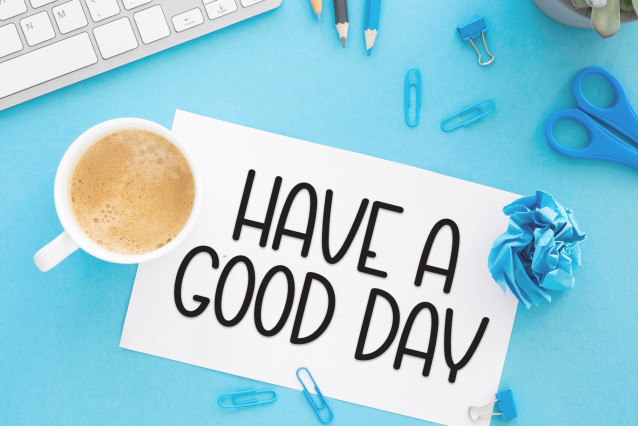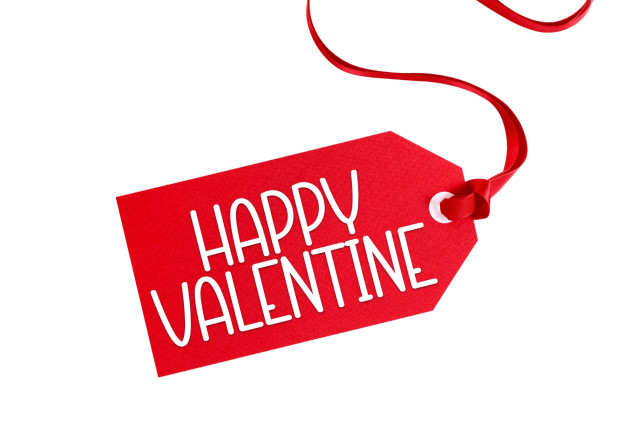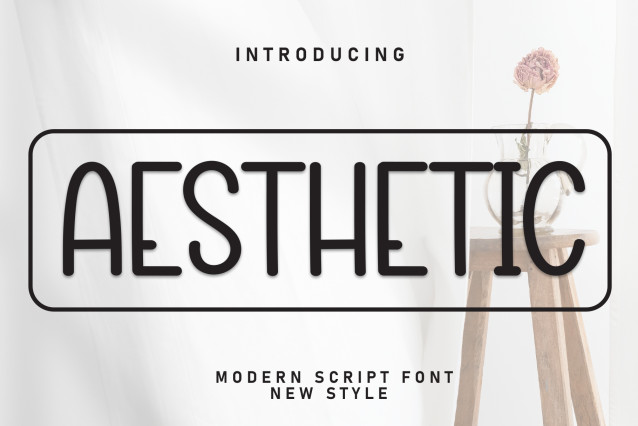
Aesthetic Font
Aesthetic Font – special creative products for you, our products will give you an extraordinary experience.
The latest style letters are perfect for wall displays, wedding invitations, social media post logos,
advertisements, product packaging, product designs, labels, photography, watermarks, invitations, stationery, and any project that requires taste handwriting.